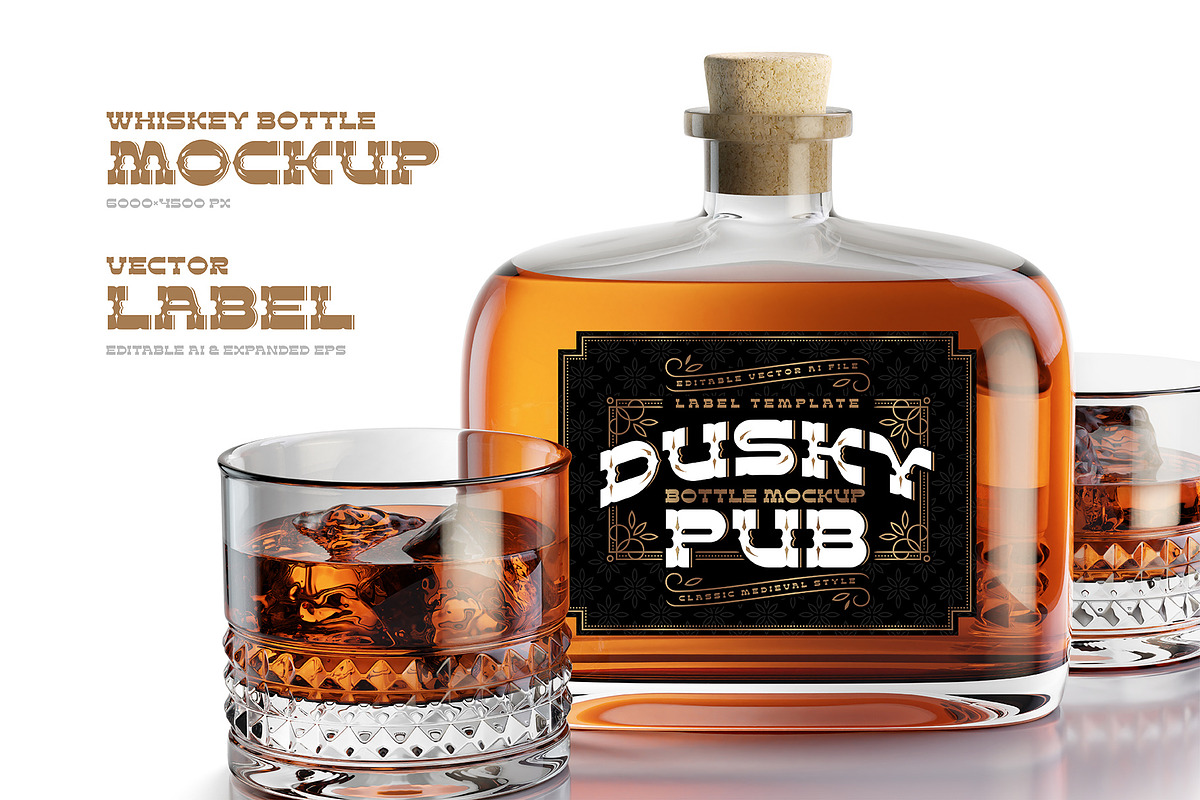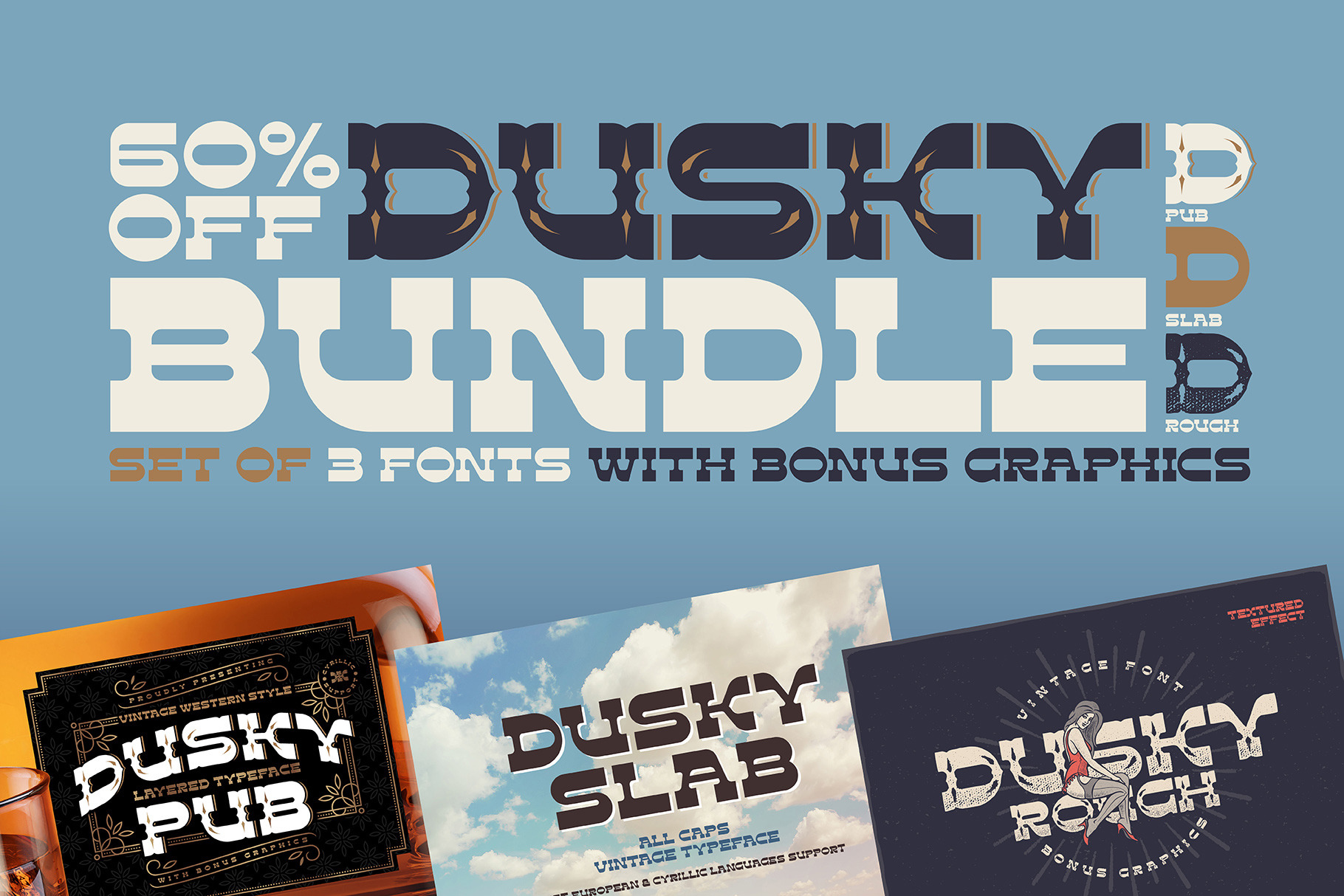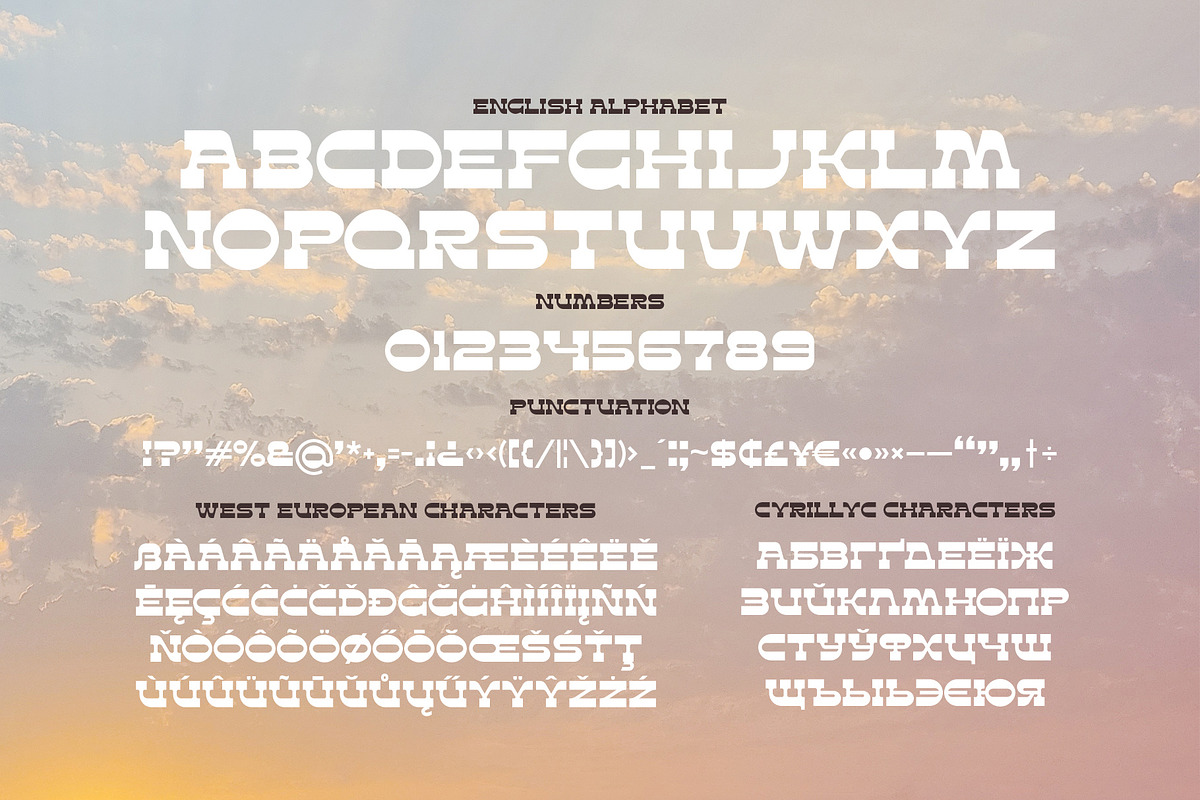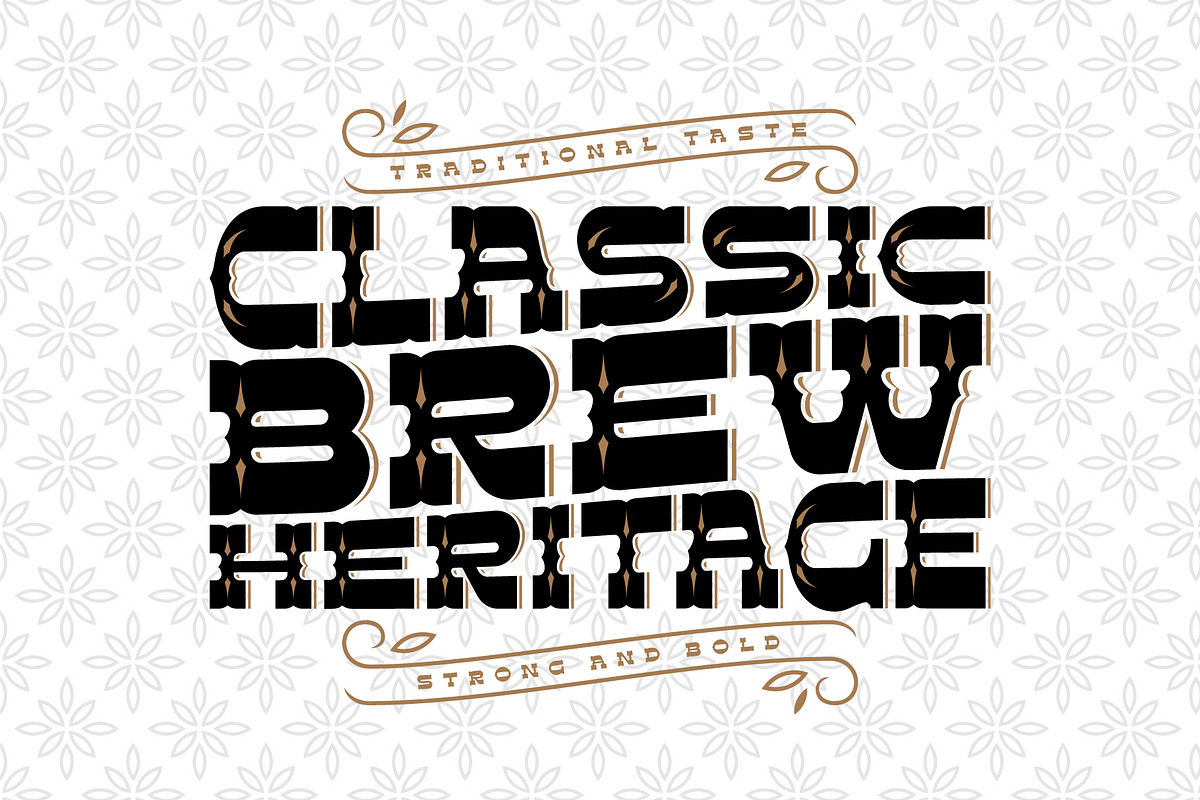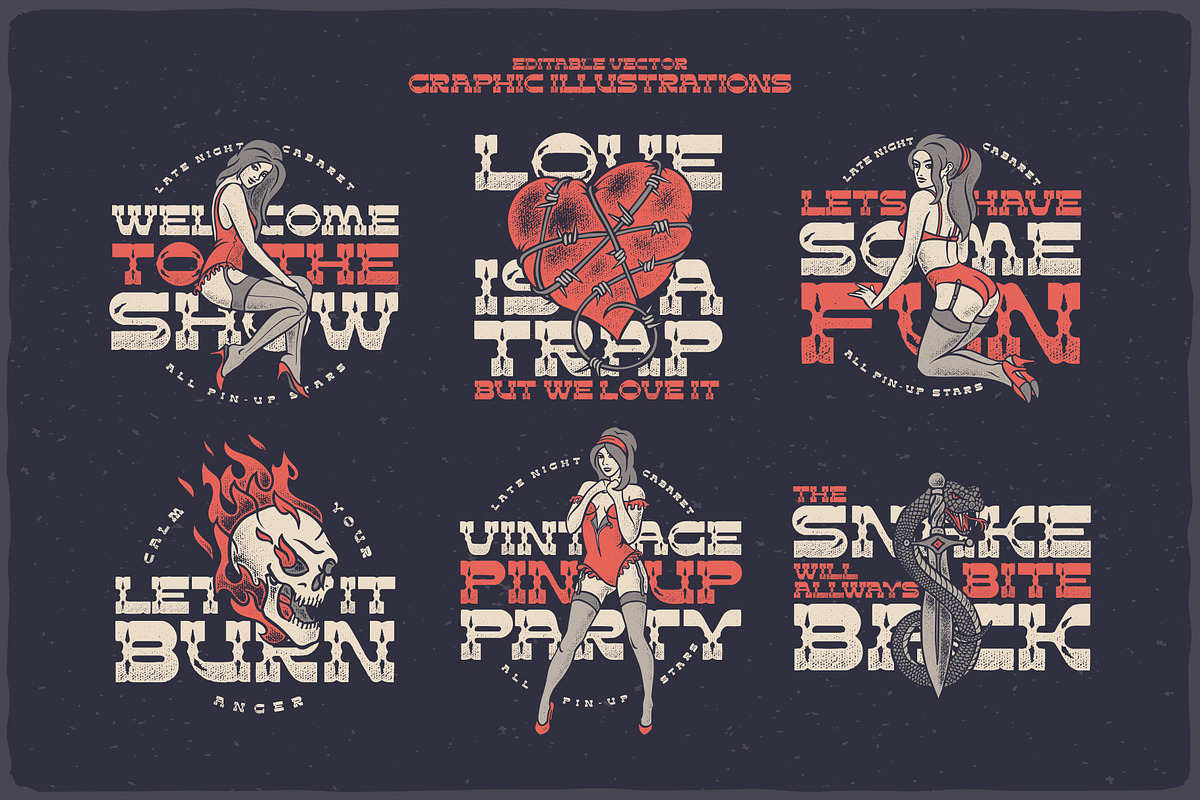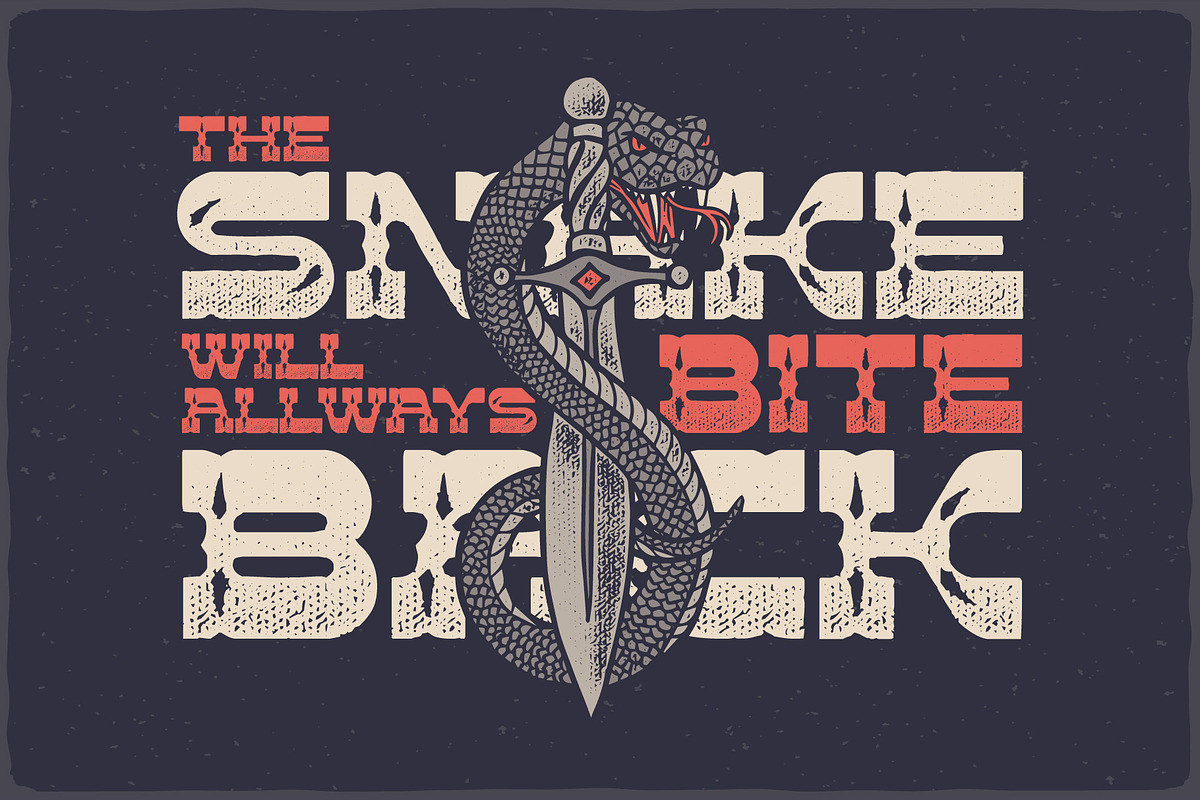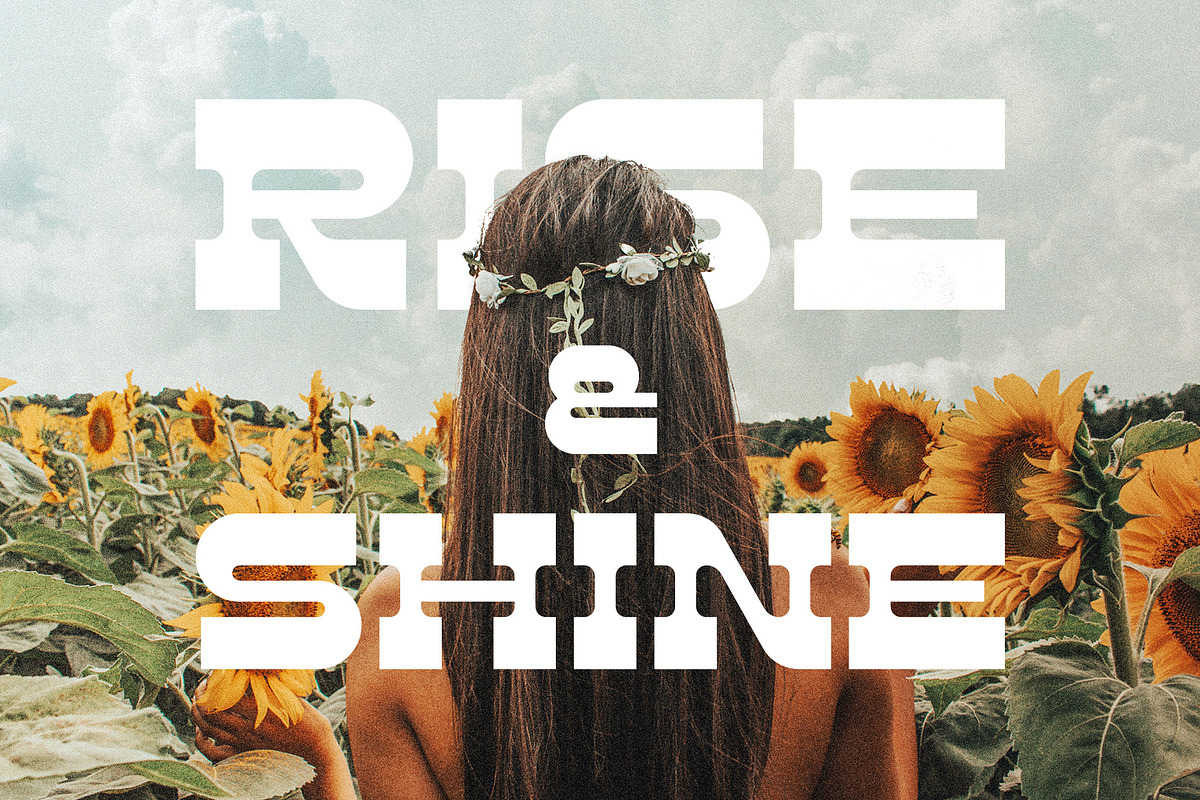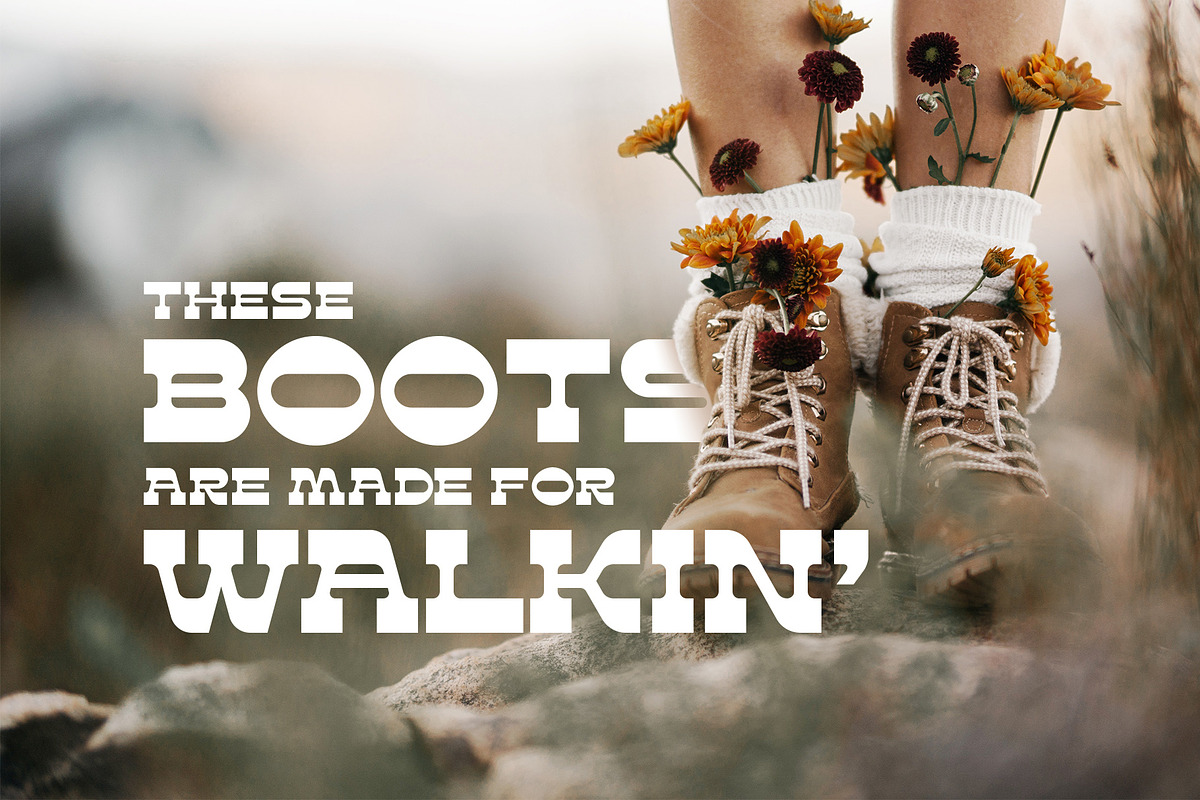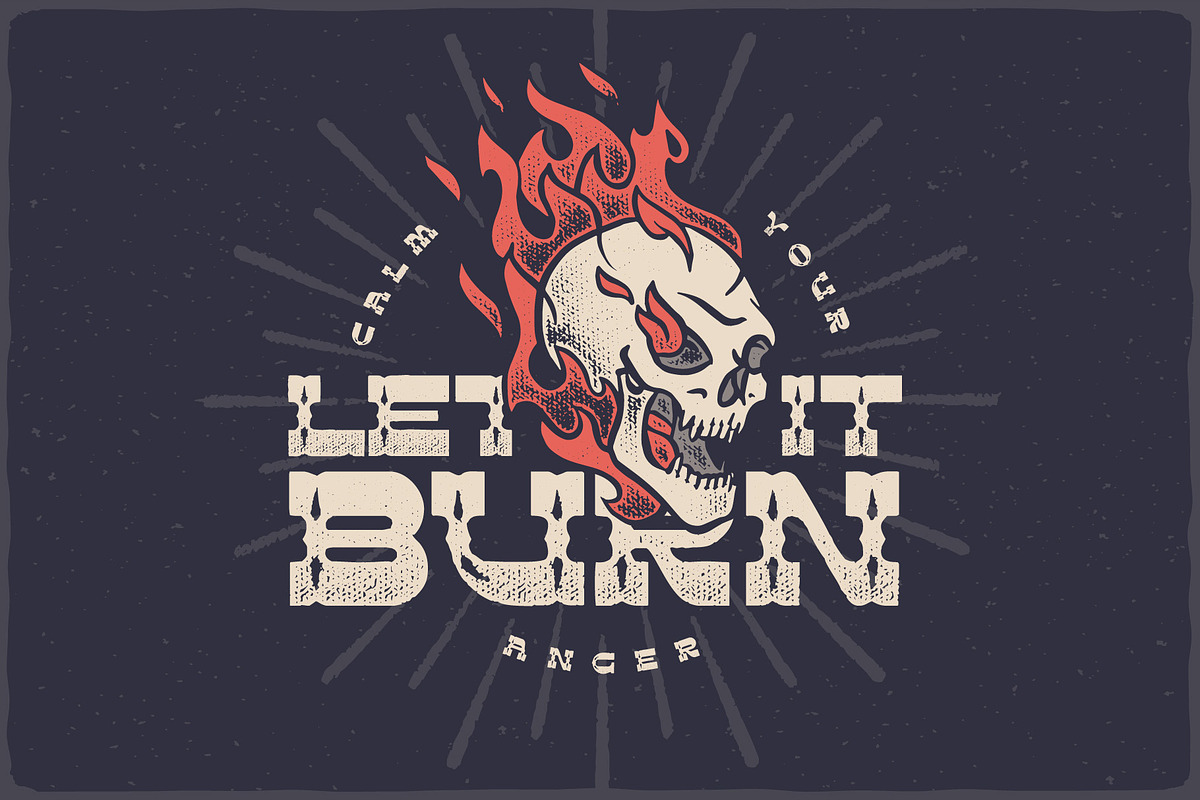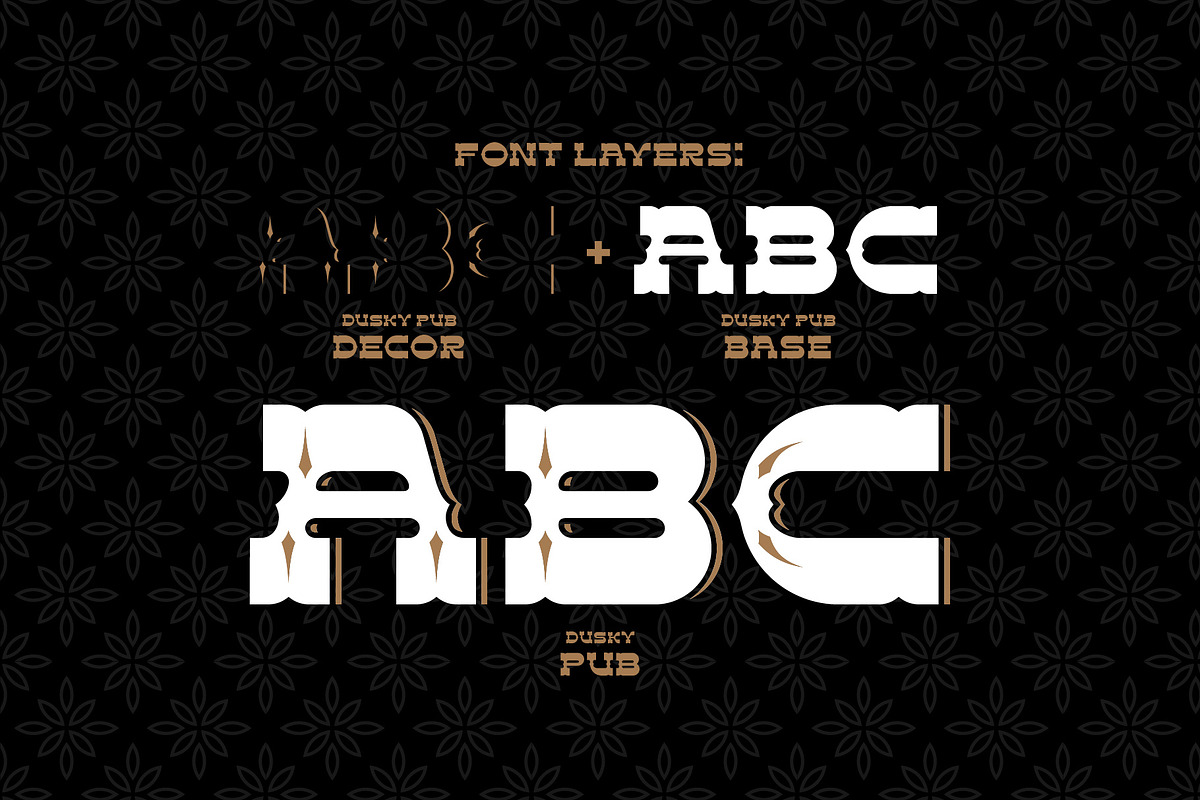
Dusky Fonts BUNDLE!
Hi there! Introducing a Dusky Fonts Bundle. It's a set of three of my products for a really good price. About 60% OFF with all the bonus stuff included. Classic style Dusky Pub Font with bottle mockup and vector label. Simple and elegant Dusky Slab Font. And vintage textured Dusky Rough Font with lots of vector illustrations. All of this fonts has a west european and cyrillic languages support.